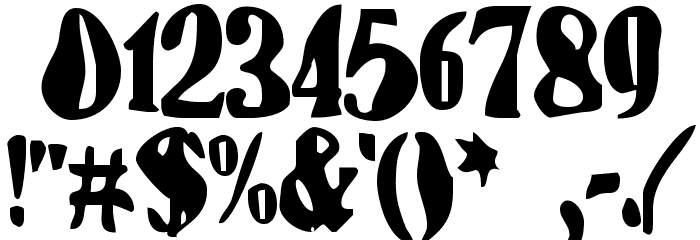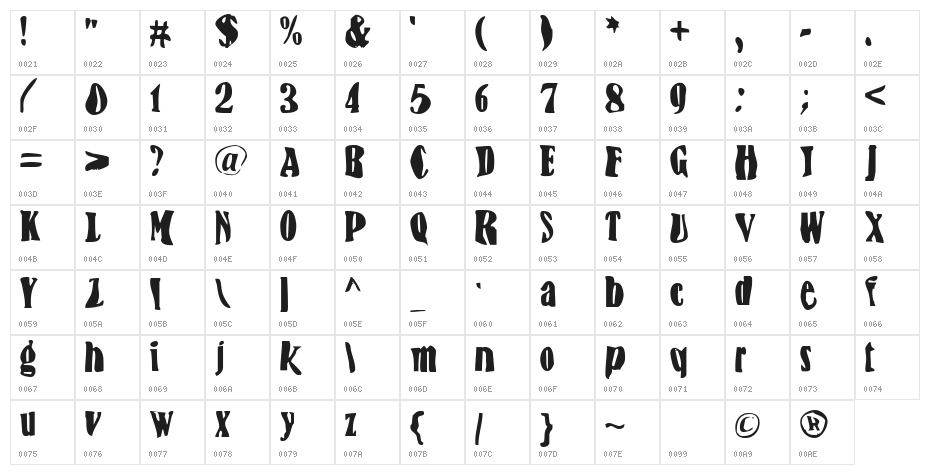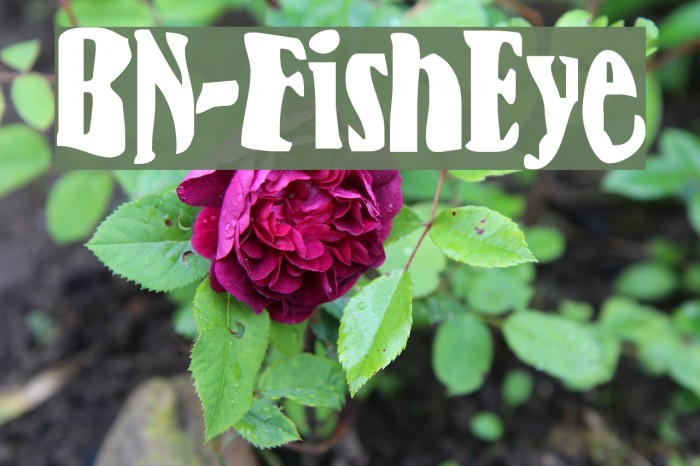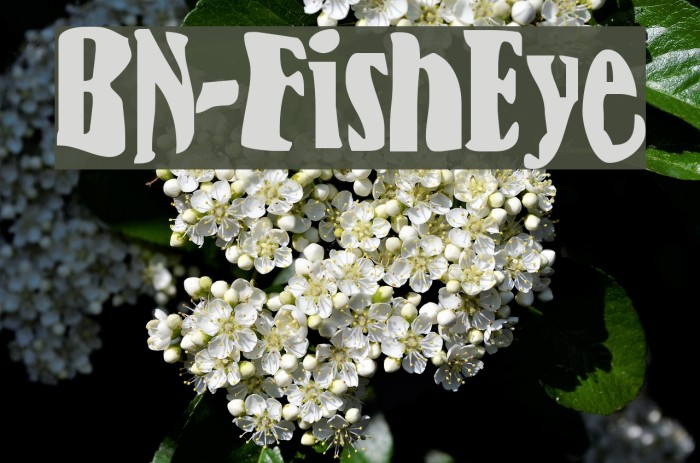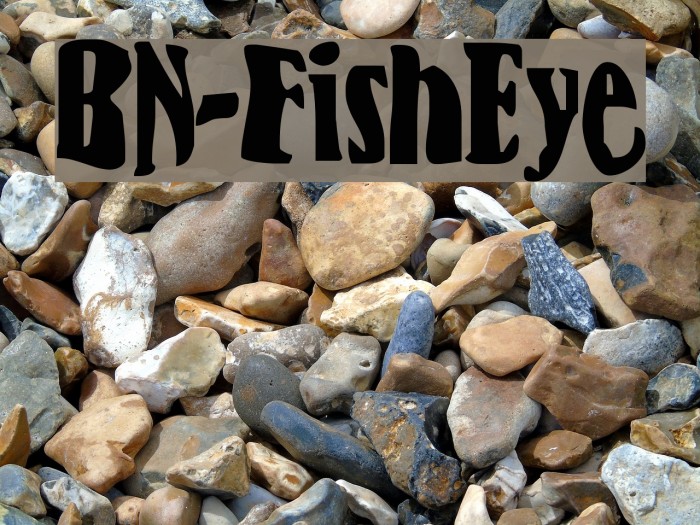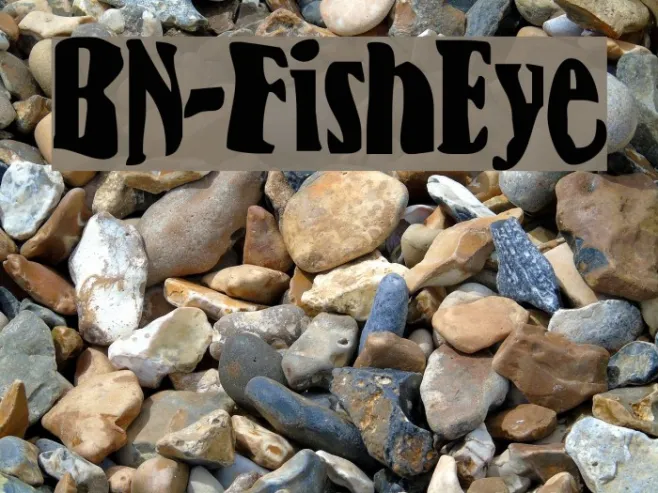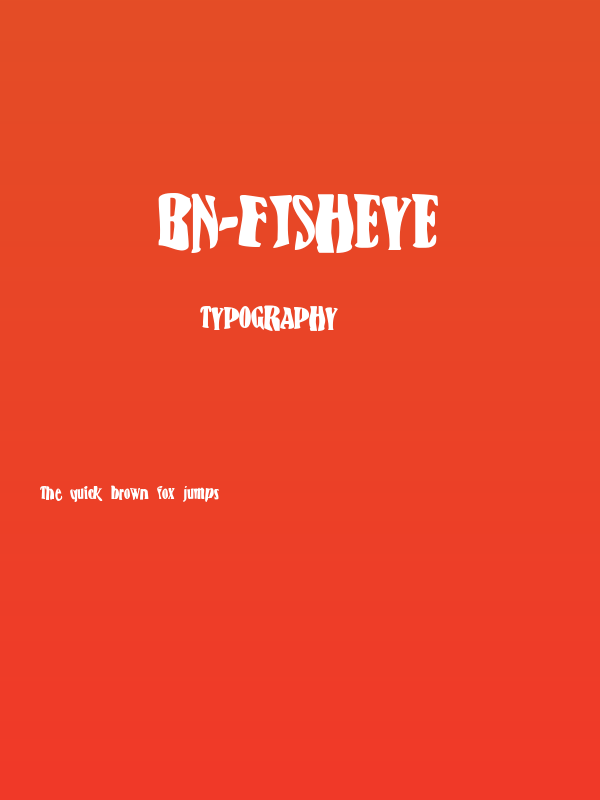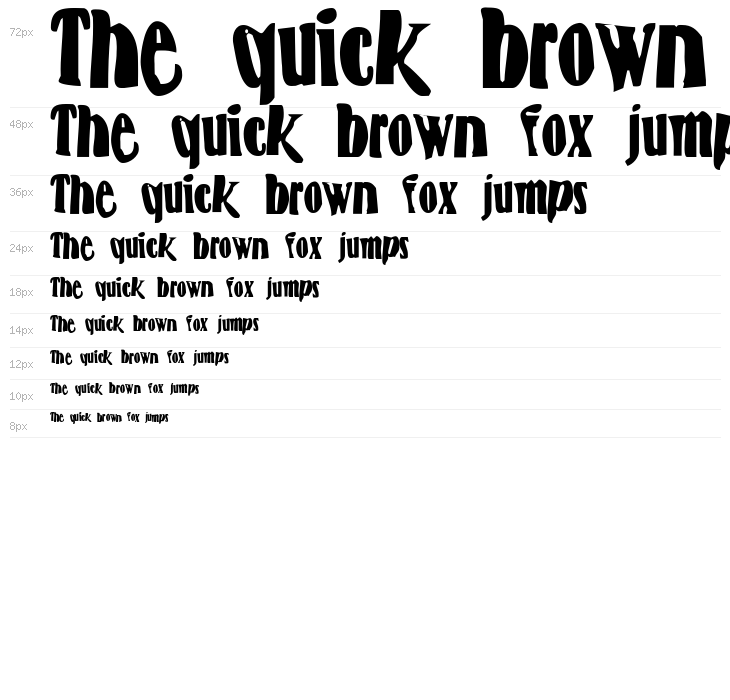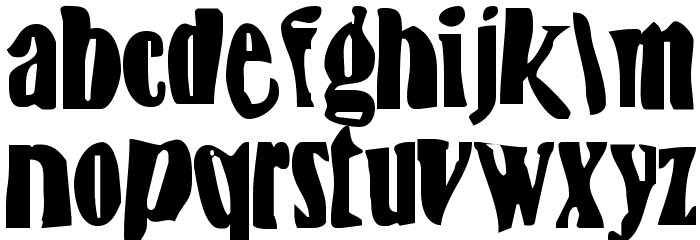
BN-FishEye Font
BN-FishEye Description
This font features a bold and playful design with a distinctive, wavy appearance that gives each character a dynamic and energetic feel. The letters are thick and have a whimsical, almost cartoonish style, making them stand out with their exaggerated curves and varying stroke widths. The uppercase and lowercase letters maintain a consistent theme, with the uppercase being slightly more pronounced. Numbers and special characters follow the same playful aesthetic, ensuring a cohesive look across all text. This font is ideal for projects that require a fun and eye-catching typeface.
| Overall Style | Playful, Whimsical, Energetic |
| Proposed Projects | Ideal for children's books, playful branding, posters, and creative advertising. |